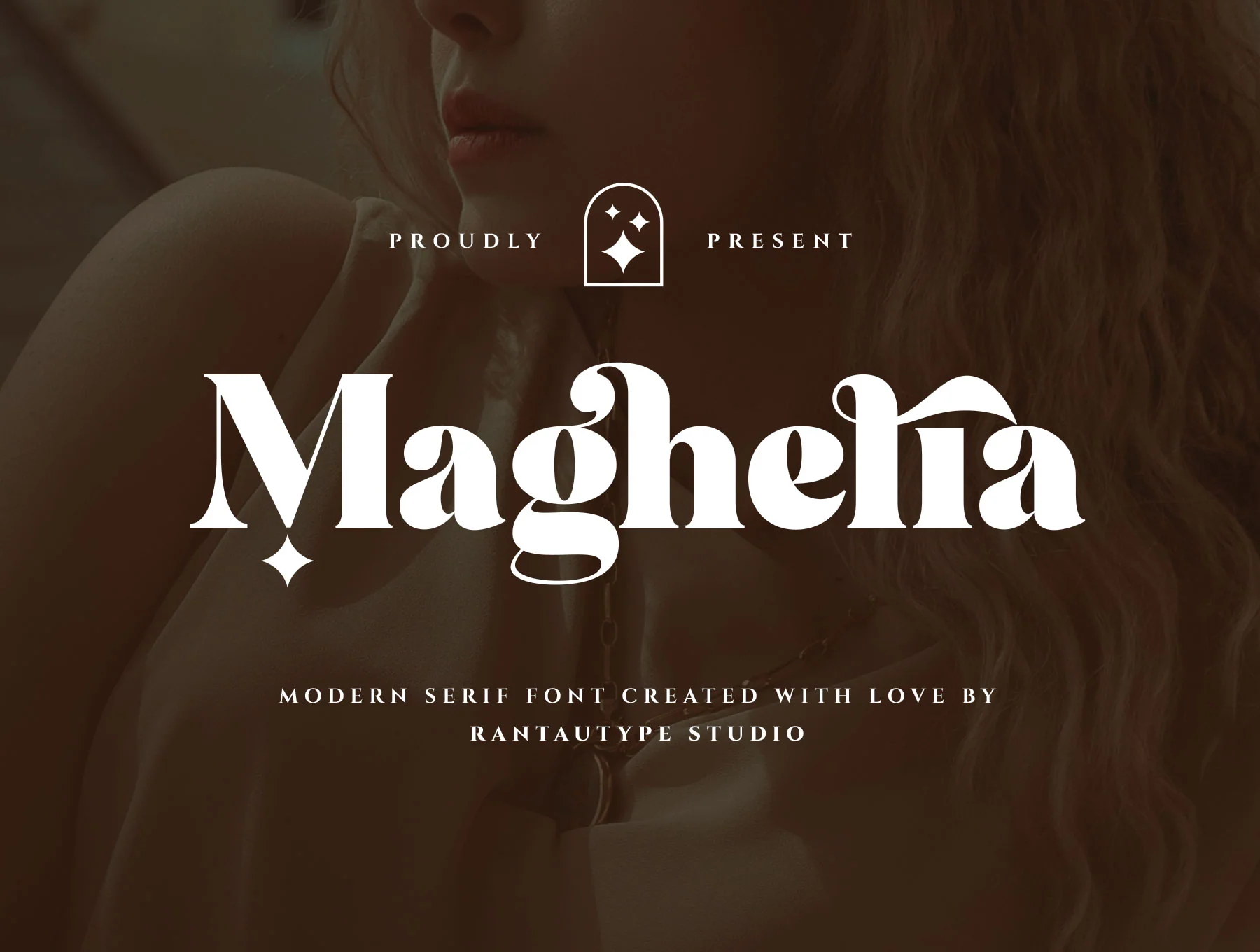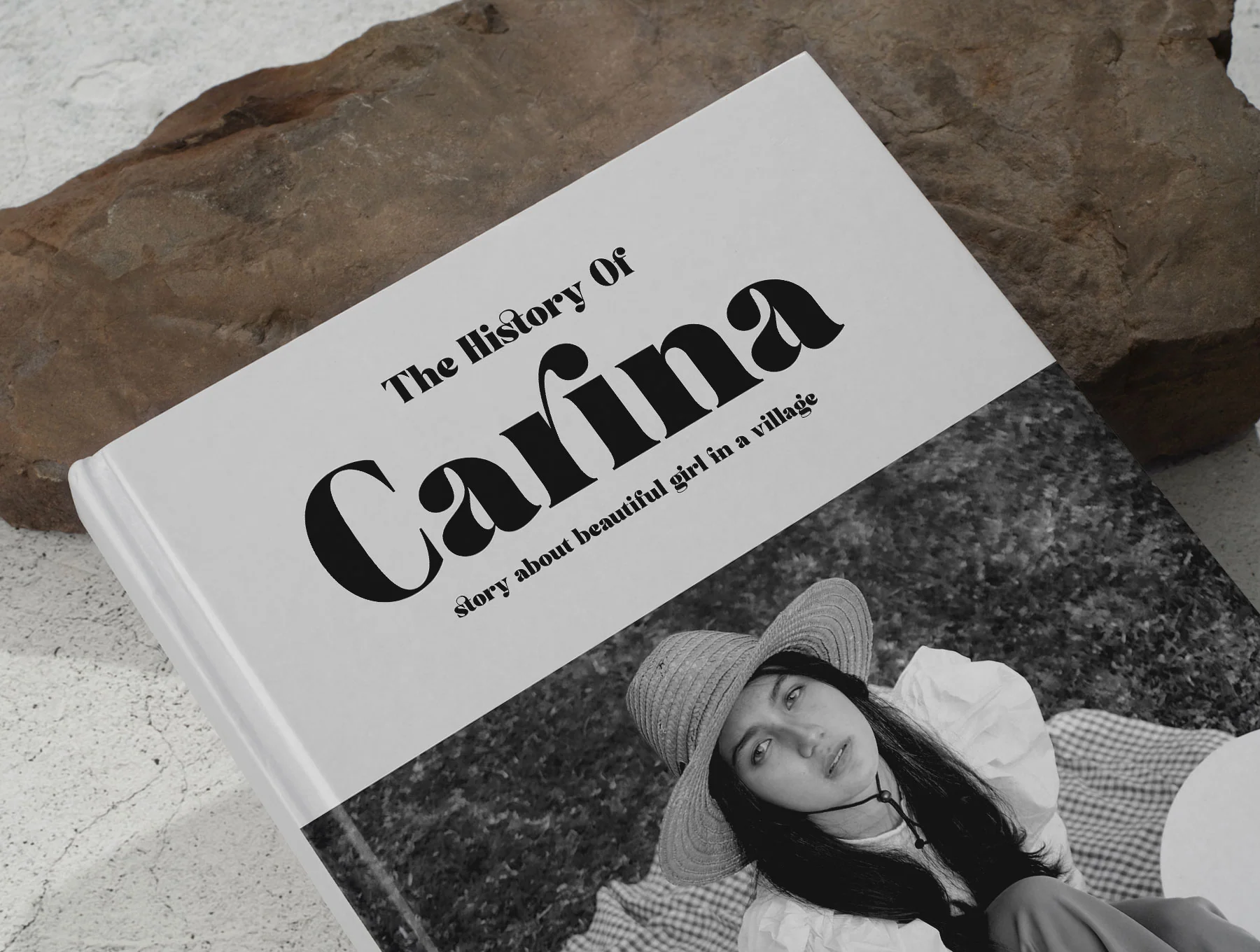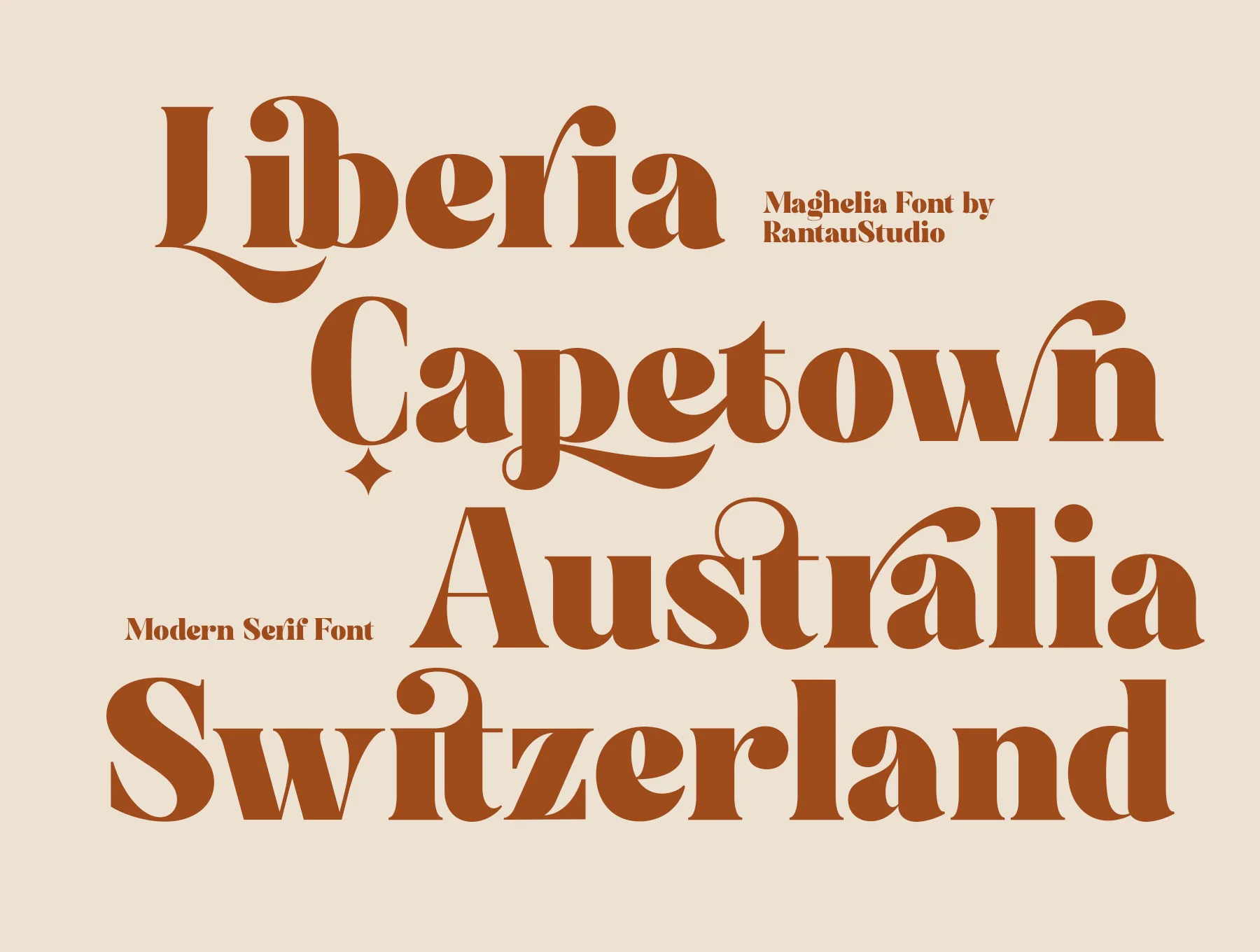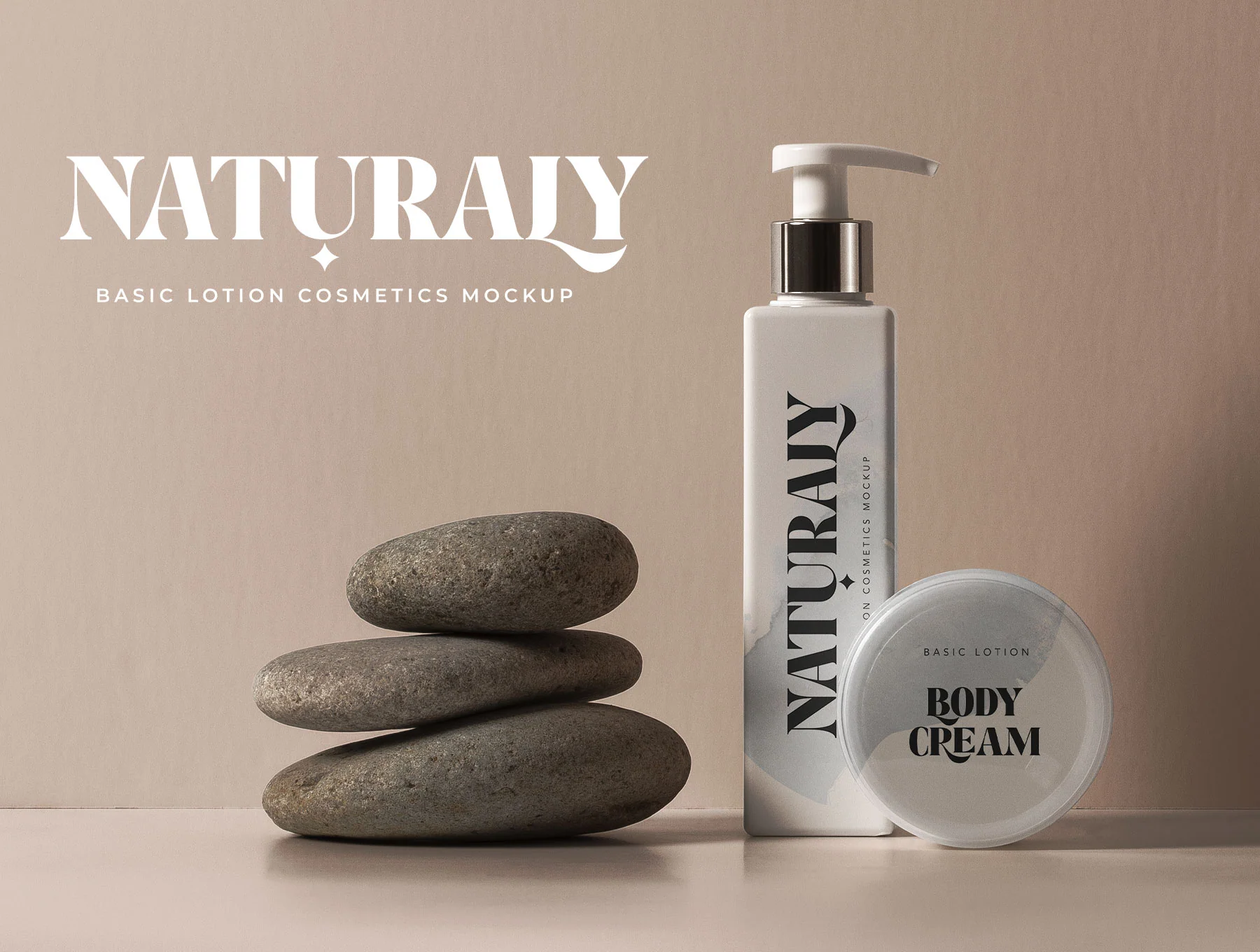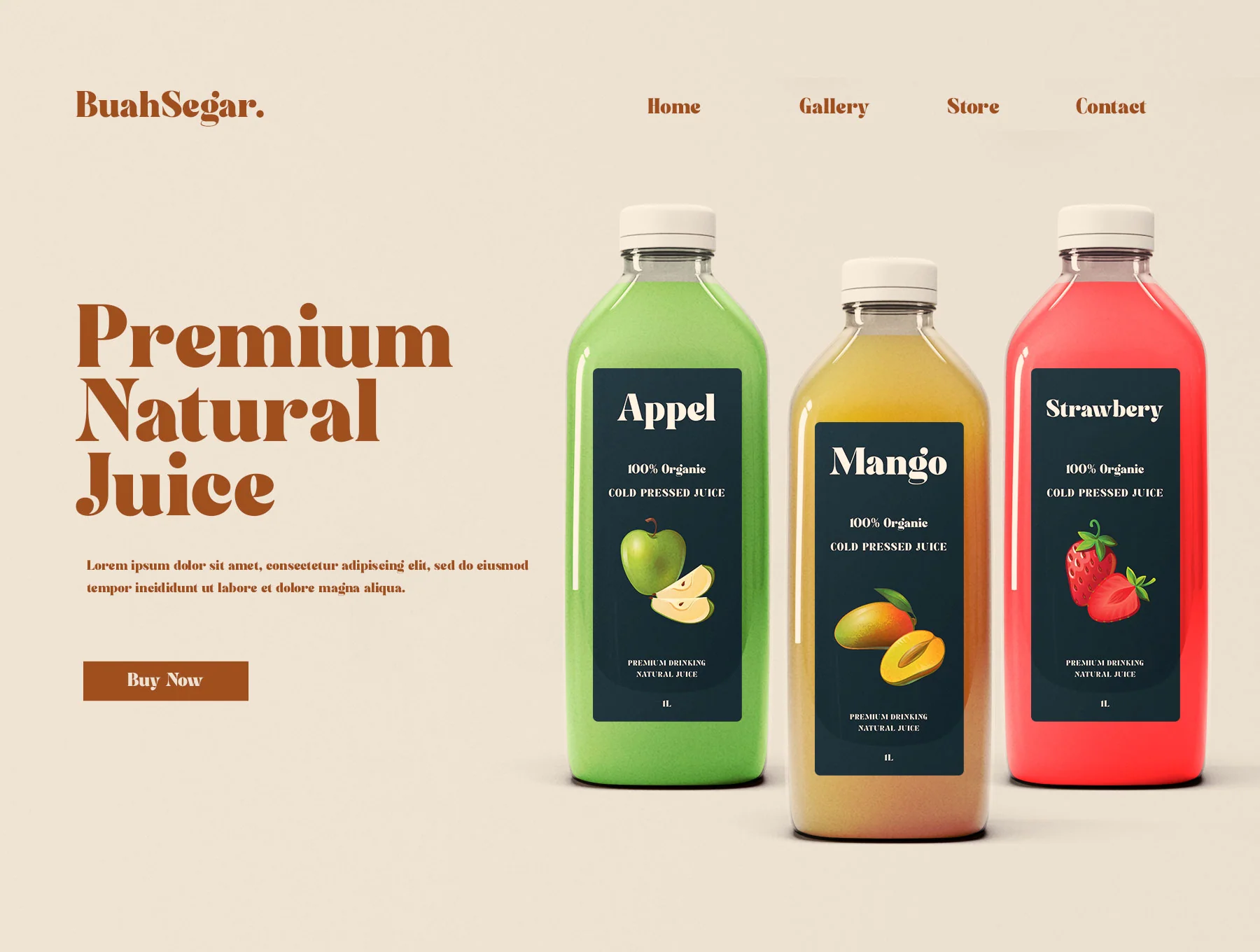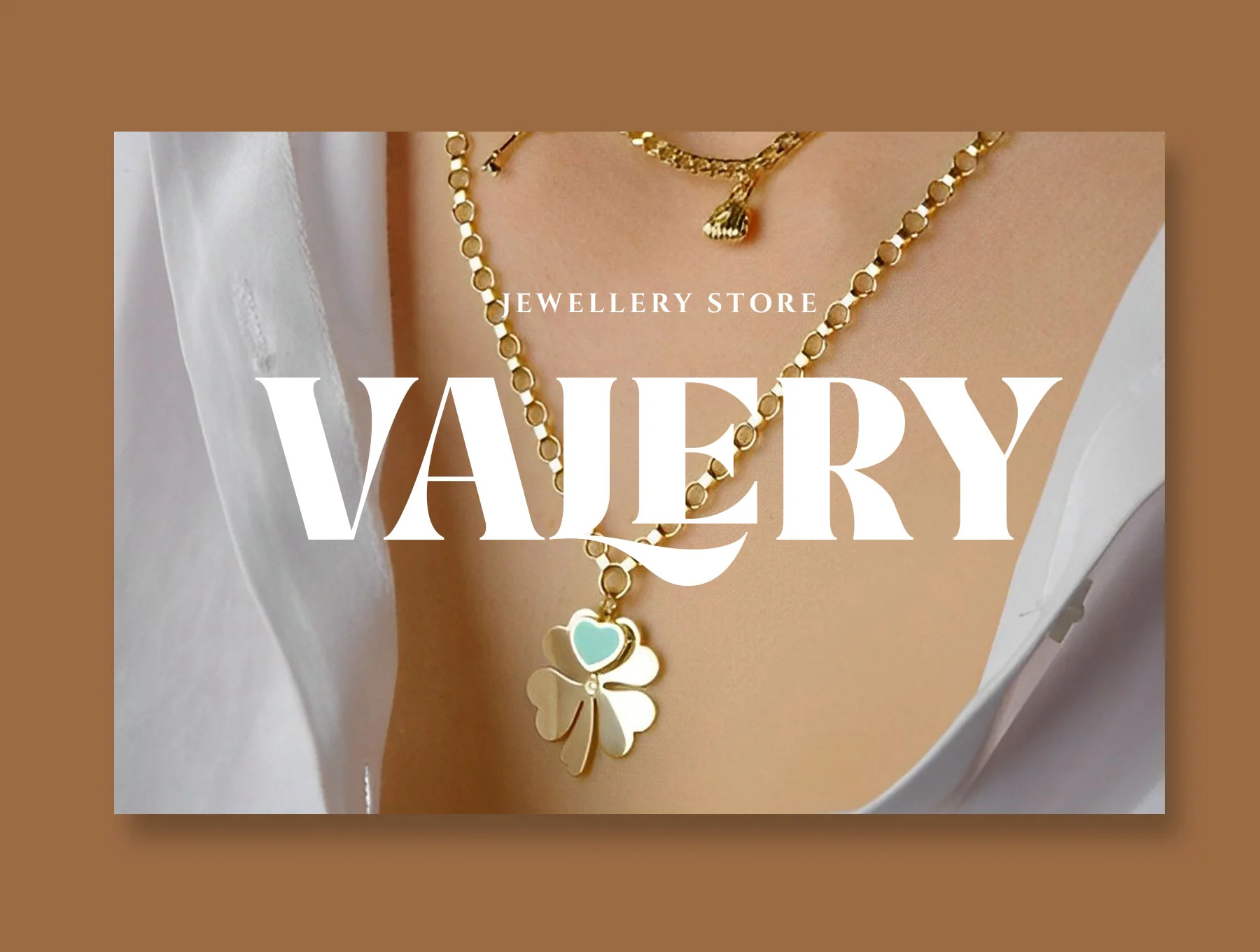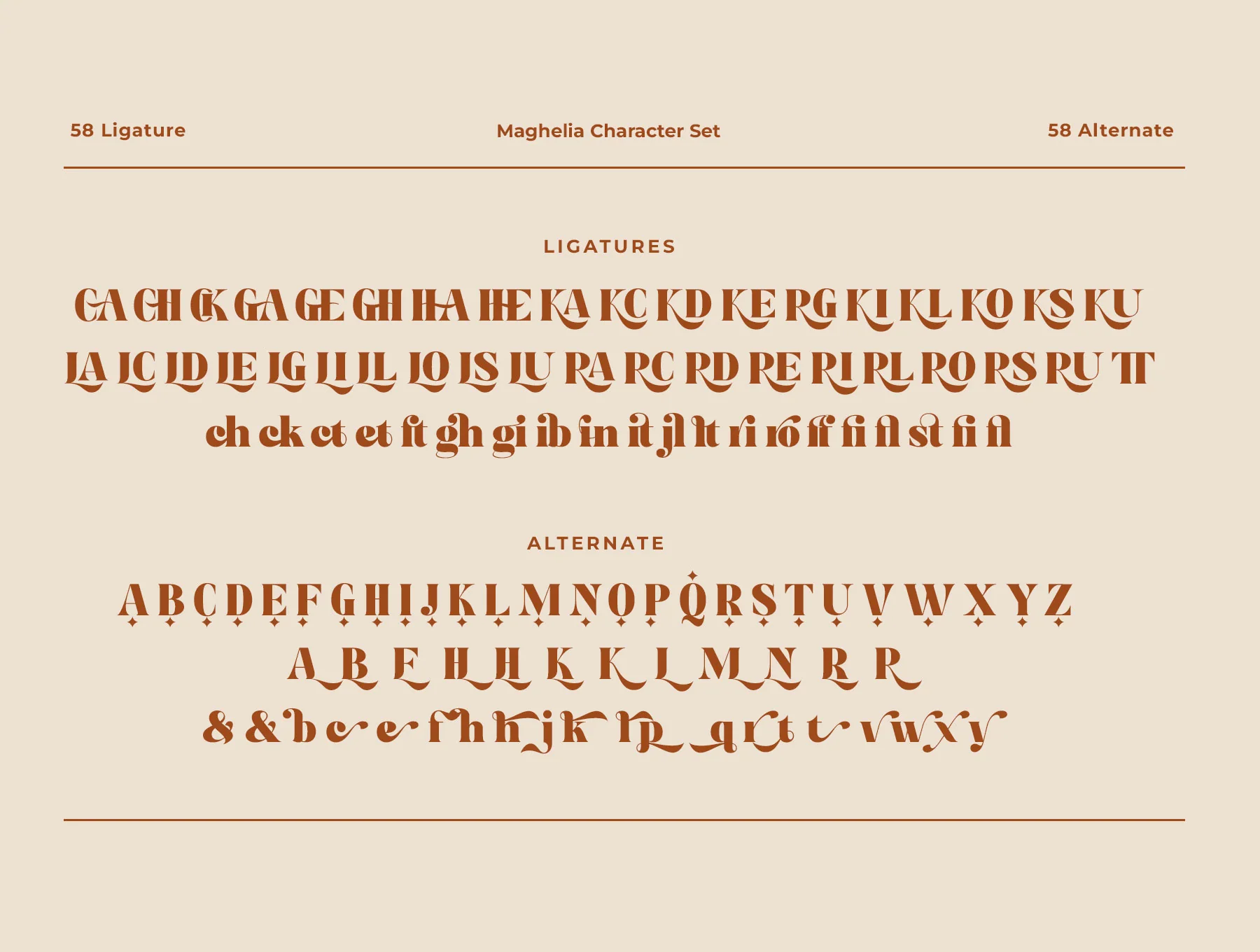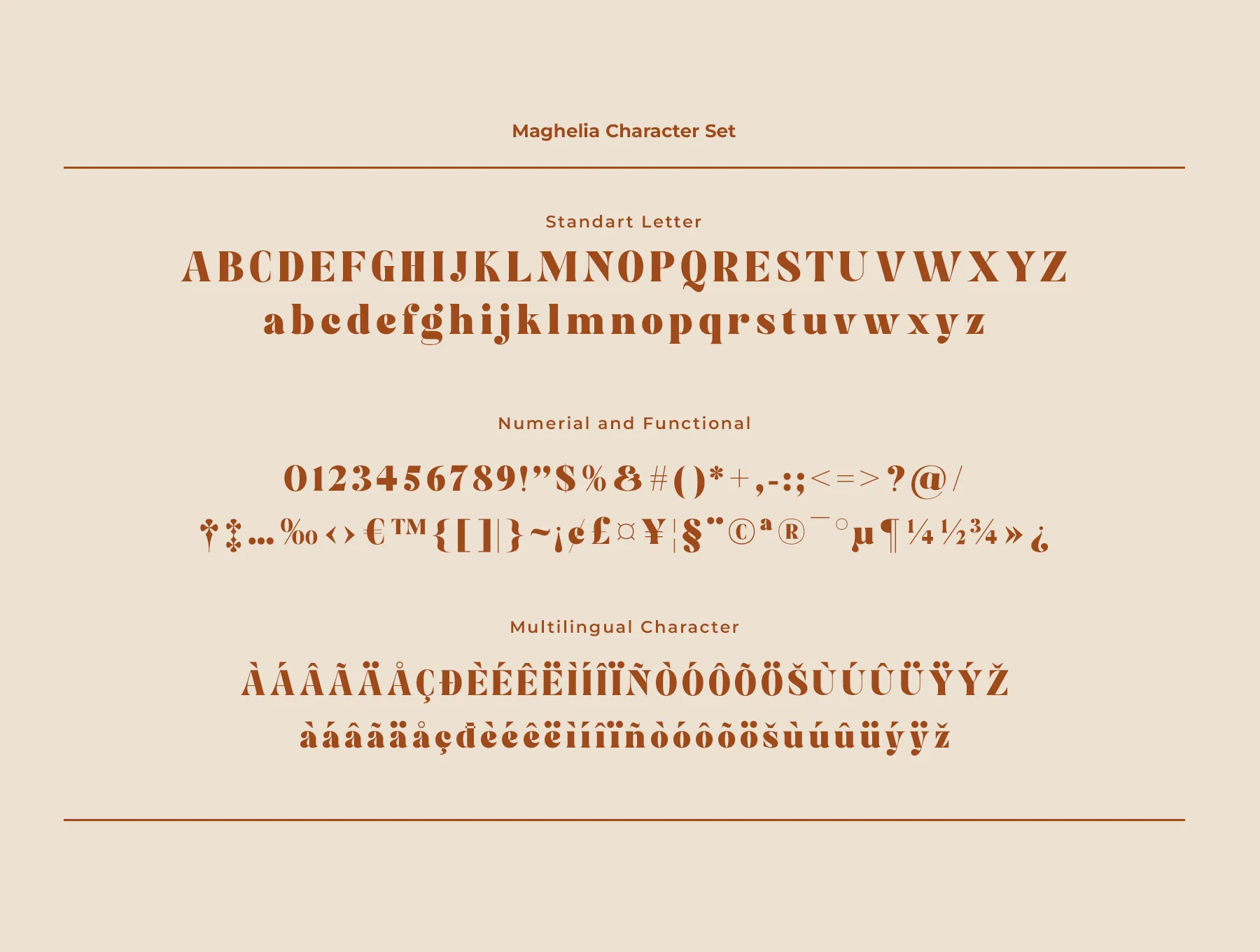
Maghelia Serif Font
Maghelia Serif Typeface
Basic uppercase and lowercase letters
Numerals plus functional characters
Alternates with ligature options
Maghelia is a contemporary serif font with elegant uppercase and lowercase forms plus matching italics. Distinct ligatures and alternates help logos, branding, covers, quotes, cards, magazines, weddings, and lifestyle designs shine. Includes OTF, TTF, WOFF, A–Z/a–z, numbers, symbols, multilingual support, PC/Mac use, and compatibility with Adobe apps and Word.